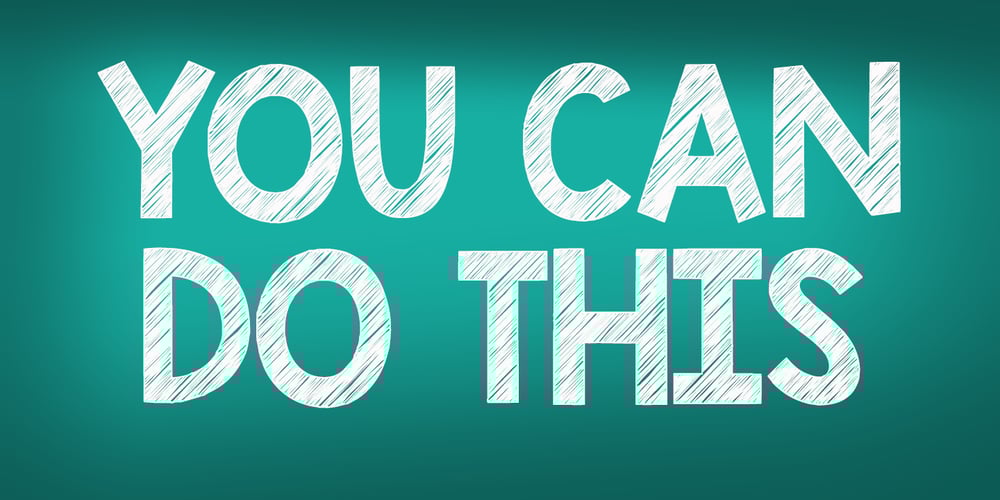
KG Blank Space Font Family was designed by Kimberly Geswein and published by Kimberly Geswein. KG Blank Space contains 2 styles and family package options. A chunky fat font perfect for titles in both a chalkboard sketch style and a regular solid version.